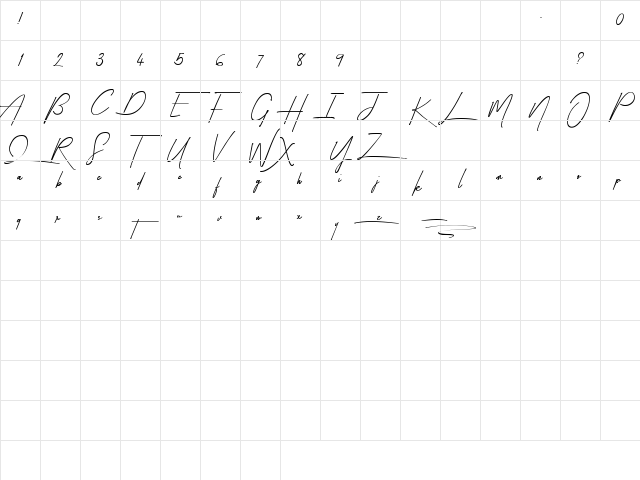
Taken by Vultures Demo Regular Free Font
Taken by Vultures Demo Regular
Designer: The Branded Quotes
Design Context for Taken by Vultures Demo
Taken by Vultures Demo is a composed and adaptable typeface that performs quietly and consistently across a wide range of design contexts.